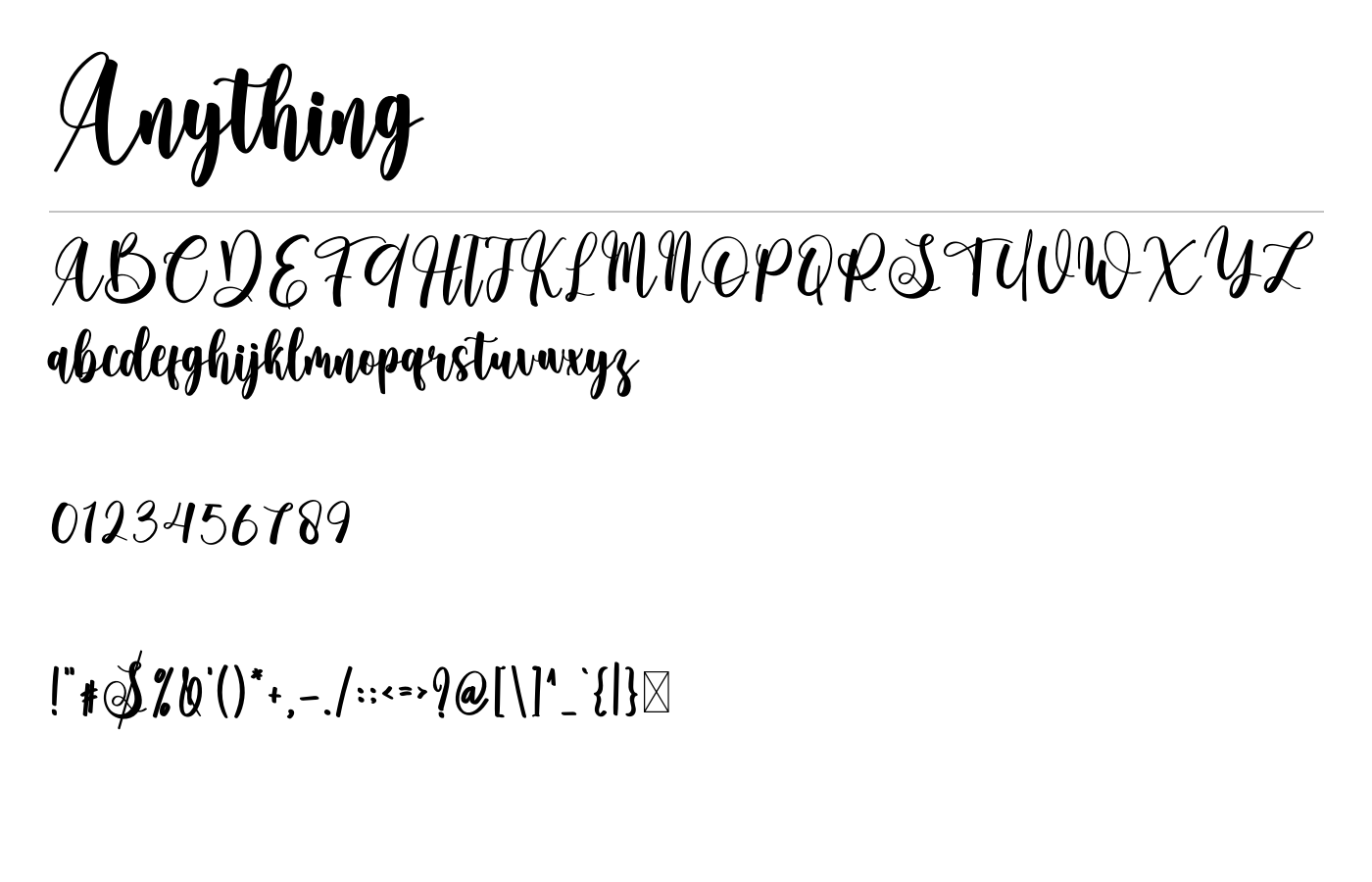
Anything Font is a lively and elegant script typeface featuring fluid, brush-like strokes with varying thickness that create a dynamic and handcrafted feel. Its playful yet refined character makes it ideal for invitations, branding, and creative projects seeking a stylish and personal touch. With its clear, decorative uppercase and smooth lowercase letters, it works best in headlines or short texts where a warm, friendly, and artistic vibe is desired.
Anything Font